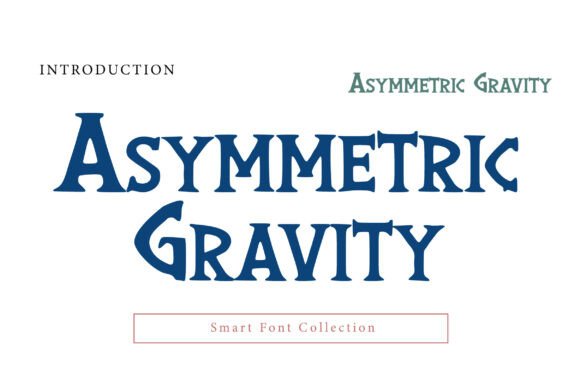
The Power of Asymmetric Gravity: A Bold, Gothic-Inspired Font
I still remember the design project that led me to discover Asymmetric Gravity. I was working on a fantasy-themed book cover, and I needed a font that would convey a sense of mystery and drama. After hours of searching, I stumbled upon this bold, gothic-inspired display serif font, and it instantly caught my attention. With its sharp wedge serifs, dramatic stroke contrast, and distinctive medieval character structure, Asymmetric Gravity was the perfect fit for my project. In this article, I’ll share my experience with this powerful font, its features, and how to make the most of it in your designs.
An Honest Review of Asymmetric Gravity
- ✨ Unique and commanding presence: Asymmetric Gravity’s asymmetric details and strong letterforms make it perfect for creating a bold, eye-catching design.
- ✅ Versatility: This font is suitable for a wide range of projects, from logos and branding to game titles, book covers, and movie posters.
- 🔥 Dramatic energy: Asymmetric Gravity adds a touch of mystery and cinematic flair to any design, making it ideal for fantasy, gothic, and dark-themed projects.
- 💻 Easy to use: The font comes with a range of OpenType features, glyphs, and stylistic alternates, making it easy to customize and adapt to your design needs.
While Asymmetric Gravity is an excellent font, there are a few things to keep in mind:
- 🤔 Limited legibility at small sizes: Due to its bold and ornate design, Asymmetric Gravity may not be the best choice for body text or small font sizes.
- ⚠️ Kerning issues: As with any font, you may need to adjust the kerning to ensure optimal spacing between letters.
The Backstory of Asymmetric Gravity
Asymmetric Gravity was designed with fantasy and gothic aesthetics in mind. Its creator drew inspiration from medieval manuscripts, ancient runes, and mysterious artifacts to craft a font that’s both bold and elegant. The result is a typeface that adds depth, intensity, and character to any design.
Q: What makes Asymmetric Gravity unique?
A: Asymmetric Gravity’s unique blend of sharp wedge serifs, dramatic stroke contrast, and asymmetric details sets it apart from other fonts.
Q: Is Asymmetric Gravity easy to read?
A: While Asymmetric Gravity is a bold and dramatic font, it may not be the best choice for body text or small font sizes due to its ornate design.